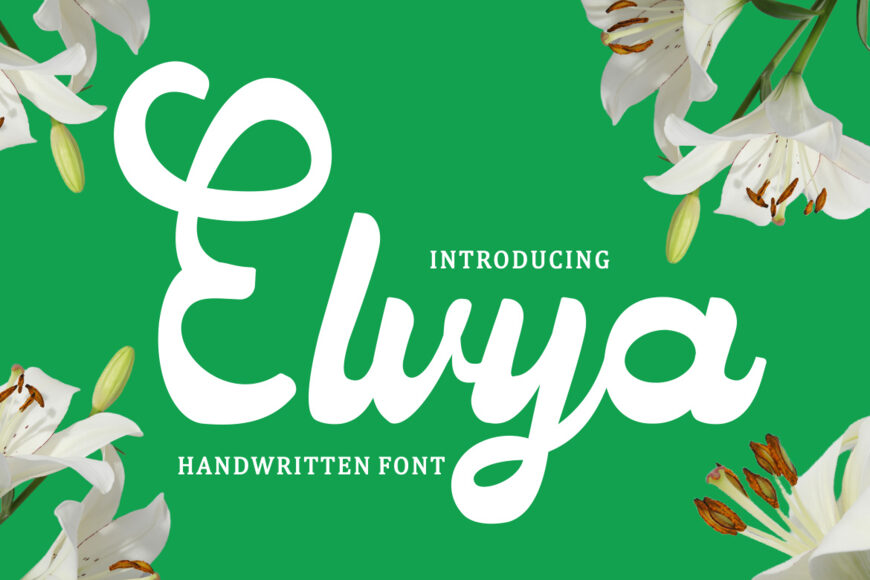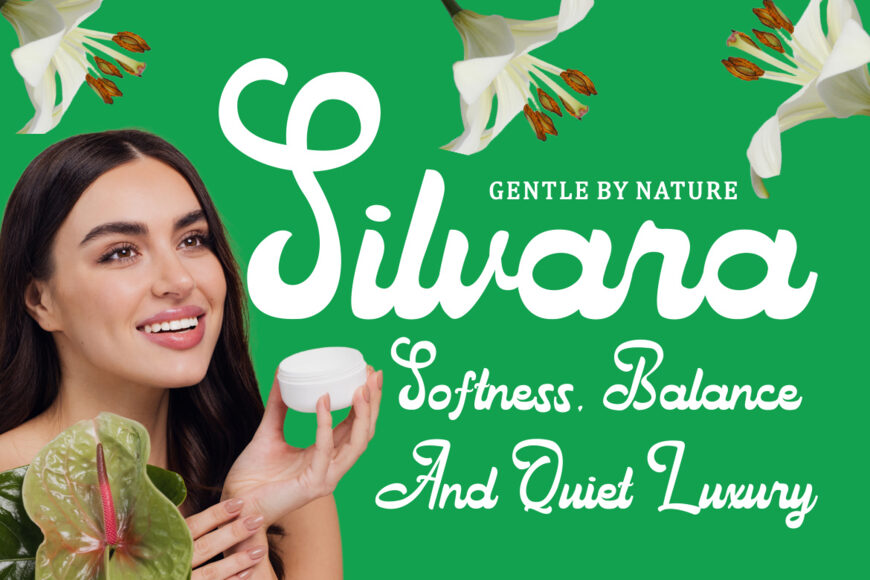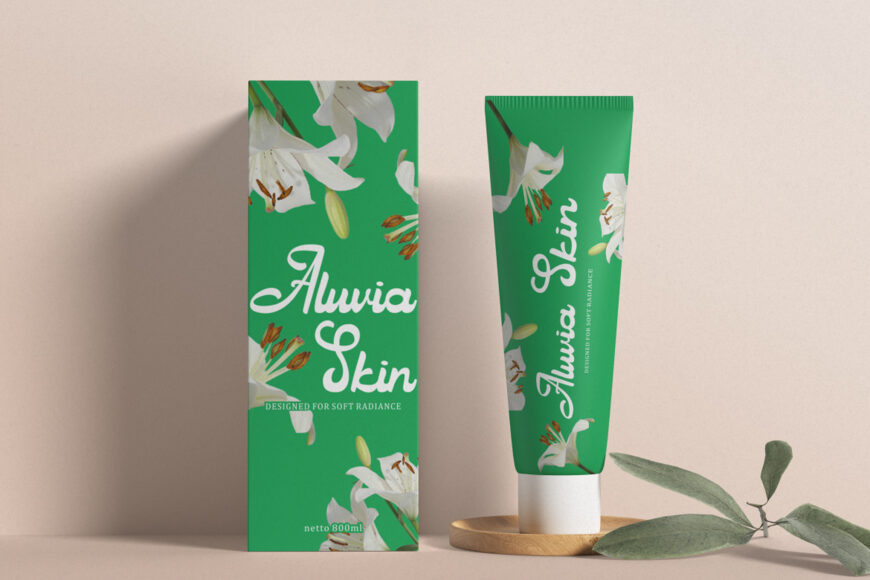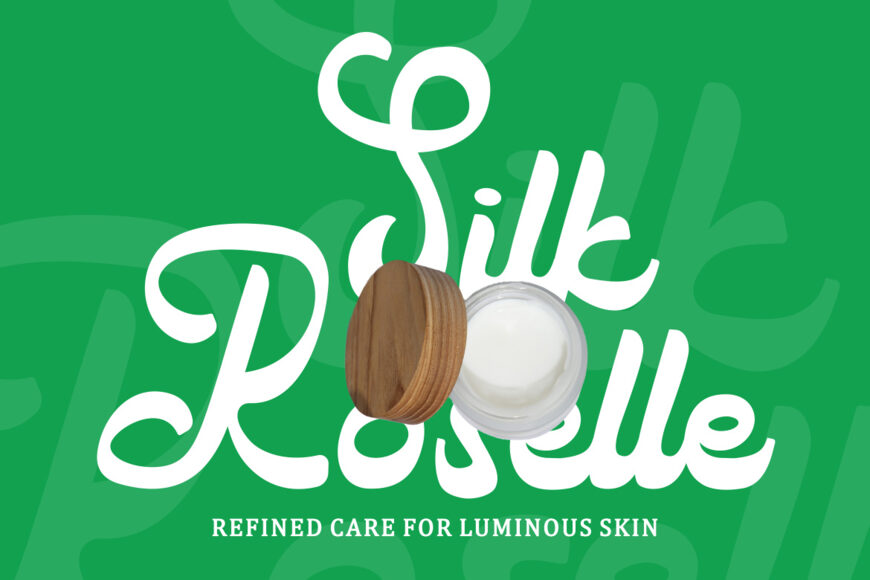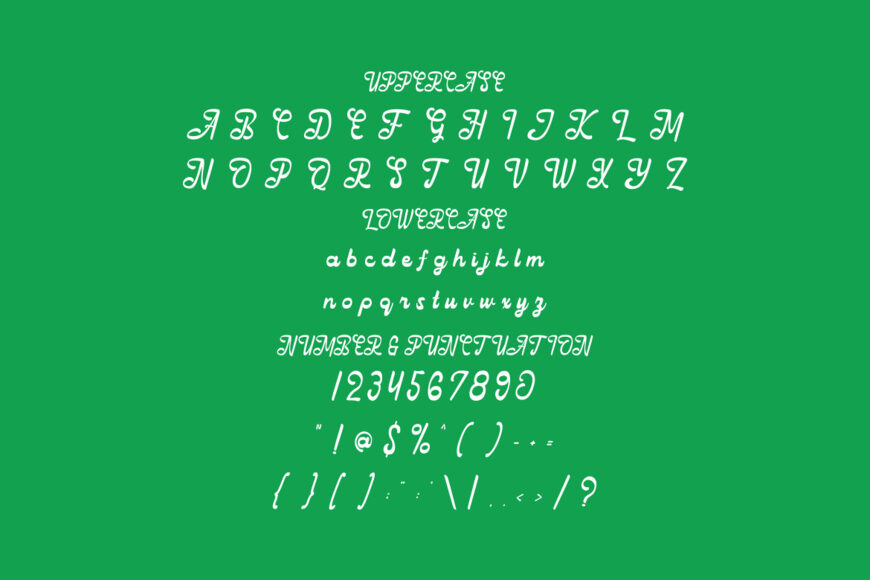
Elvya is a handwritten font with fluid script forms, smooth connections, and balanced thick-and-thin strokes. Its graceful curves, rounded terminals, and elegant ascenders create a polished calligraphic feel, while softly sweeping descenders add movement.
The lettering flows naturally, resembling steady handwriting with a clean, refined texture. Feminine and expressive without feeling overly ornate, Elvya maintains good readability while retaining a distinctive personality. It is an excellent choice for brands seeking a warm, sophisticated, and approachable visual identity.